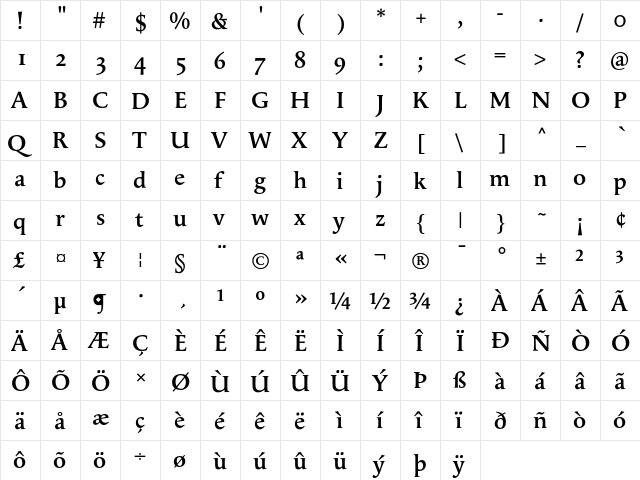
Apolline SemiBold
Design Context for Apolline Typeface
Apolline offers clean, dependable letterforms without strong stylistic allegiance, making it a practical choice for designers who need flexibility. Its bold stroke weight gives it real presence on the page.
Pro Tip: Pair Apolline with a font of contrasting weight or personality to build a more expressive typographic hierarchy.